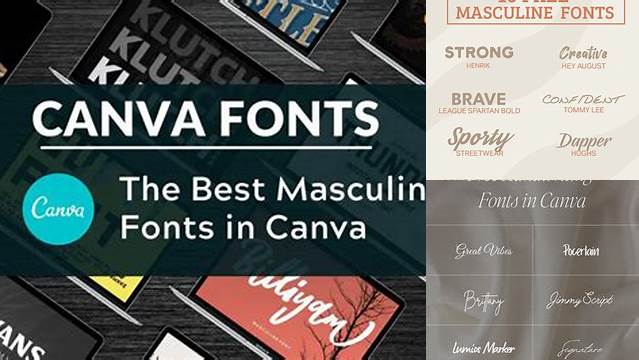
Masculine Fonts In Canva: Rugged & Stylish Choices
Guys, are you looking to inject some rugged charm and personality into your designs? Maybe you're working on a logo for a men's grooming brand, a website for a construction company, or even a masculine-themed invitation. Whatever it is, the right font can make all the difference. And if you're a Canva user, you're in luck! Canva boasts a vast library of fonts, and within it lies a treasure trove of masculine handwriting fonts just waiting to be discovered.
Why Masculine Handwriting Fonts?
Before we dive into specific fonts, let's talk about why you might choose a masculine handwriting font in the first place. Masculine fonts, in general, tend to evoke feelings of strength, reliability, and confidence. They often have heavier weights, bolder strokes, and a more angular or geometric appearance. When you combine these characteristics with the organic, human touch of handwriting, you get a powerful combination. Handwriting fonts add a personal and authentic feel to your designs, making them feel less corporate and more relatable. A well-chosen masculine handwriting font can convey a sense of craftsmanship, tradition, or even rebellion, depending on the specific style you choose.
Think about the message you want to send with your design. Are you aiming for a classic, vintage vibe? A modern, edgy feel? Or something in between? The font you choose should align with your overall design aesthetic and target audience. For example, a bold, brush-style handwriting font might be perfect for a rock band poster, while a refined, cursive font might be more appropriate for a high-end men's fragrance brand. The key is to select a font that not only looks good but also communicates the right message.
Key Characteristics of Masculine Handwriting Fonts
So, what exactly makes a handwriting font "masculine"? While there's no single definition, there are some common characteristics to look for:
- Boldness and Weight: Masculine fonts often have thicker strokes and a heavier weight, giving them a more substantial and grounded feel. Think about fonts that have a strong presence on the page and don't get lost in the background.
- Rough Edges and Imperfection: Unlike clean, geometric fonts, masculine handwriting fonts often embrace imperfections. Slightly rough edges, uneven strokes, and subtle variations in letterforms add character and authenticity. These imperfections make the font feel more human and less sterile.
- Angularity and Sharpness: Many masculine fonts incorporate angular shapes and sharp edges, conveying a sense of strength and precision. This is especially true for fonts inspired by industrial or military styles. Look for fonts with strong, defined lines and minimal curves.
- Vintage and Classic Styles: Masculine handwriting fonts often draw inspiration from vintage and classic styles, such as vintage scripts, brush lettering, and sign painting. These styles evoke a sense of tradition, craftsmanship, and timelessness. Consider fonts that have a retro or old-fashioned feel.
- Minimalist and Clean: While many masculine fonts are bold and rugged, there are also minimalist and clean options that can convey a sense of understated elegance. These fonts often have simple, geometric letterforms with a touch of handwriting flair. Look for fonts that are clean and legible but still have a unique personality.
Remember, these are just general guidelines, and there are always exceptions to the rule. Ultimately, the best way to find the right masculine handwriting font is to experiment and see what works best for your specific project.
Top Masculine Handwriting Fonts in Canva
Okay, guys, let's get to the good stuff! Now that we know what to look for, let's explore some of the top masculine handwriting fonts available in Canva. Keep in mind that Canva's font library is constantly evolving, so there may be new options available since this article was written. However, these are some solid choices that are sure to add a touch of masculine flair to your designs:
Amatic SC: This is a popular choice for a reason. Amatic SC is a condensed sans-serif font with a handwritten feel. It's bold, slightly rough around the edges, and has a strong vertical presence. It's a great option for headlines, posters, and other designs where you want to make a statement. This font works great for designs where you need to capture attention immediately, such as promotional materials or event posters. Its bold presence and handwritten feel can add a personal touch while maintaining readability, making it a versatile choice for various projects.
Permanent Marker: As the name suggests, Permanent Marker is a bold, marker-style font with a raw and edgy feel. It's perfect for designs that need a rebellious or hand-drawn touch. Think band posters, graffiti-inspired art, or anything that needs a bit of attitude. The font's irregular strokes and bold appearance give it a distinctive, hand-crafted feel, ideal for conveying authenticity and a sense of raw energy in your designs. This makes it a favorite for projects aiming for a gritty or urban aesthetic.
Oswald: While technically a sans-serif, Oswald has a slightly condensed and geometric design that lends itself well to masculine aesthetics. It's clean, legible, and has a strong, confident presence. This font is a versatile option for headlines, body text, and logos. Oswald's modern, yet sturdy character makes it suitable for professional and creative designs alike, offering a balance between formality and approachability. Its clean lines and strong presence ensure readability across various mediums, enhancing its usability.
League Gothic: Another sans-serif option, League Gothic is a classic, condensed font with a vintage industrial feel. It's tall, narrow, and has a slightly rough texture, making it perfect for designs that need a touch of old-school cool. This font is particularly effective for projects that aim to evoke a sense of nostalgia or historical significance. Its condensed form allows for impactful headlines and titles, making it a preferred choice for posters, advertisements, and branding materials seeking a vintage aesthetic.
Raleway: Raleway is an elegant sans-serif font with a geometric design and a slightly quirky personality. It's clean, modern, and versatile, making it a great choice for a wide range of projects. This font offers a touch of sophistication while maintaining a contemporary feel, making it suitable for both digital and print designs. Its versatility allows it to be used in body text as well as headings, providing a cohesive look across different design elements.
Bebas Neue: Bebas Neue is a popular sans-serif font known for its clean lines and tall, condensed form. It's a great option for headlines and titles, especially in designs that require a modern and impactful look. Its bold presence and excellent readability make it a favored choice for posters, websites, and branding materials. The font's contemporary design ensures it remains relevant and effective in various applications, from digital interfaces to print media.
Montserrat: Montserrat is a geometric sans-serif font inspired by the urban typography of Buenos Aires. It's a versatile font with a clean and modern appearance, suitable for both headings and body text. This font brings a touch of urban sophistication to any design, with its balanced letterforms providing clarity and style. It works well in a variety of contexts, including branding, web design, and print layouts, offering a versatile solution for designers aiming for a contemporary aesthetic.
Playfair Display: This font is a transitional serif typeface, showcasing a blend of elegance and strength. Its high contrast and delicate serifs give it a refined yet commanding presence, making it an excellent choice for headlines, titles, and branding materials that require a touch of class and authority. Playfair Display is particularly effective in projects that aim to convey a sense of luxury or sophistication, enhancing the overall visual appeal with its distinctive character.
Archivo Black: If you're looking for a bold and impactful typeface, Archivo Black delivers with its heavy weight and sturdy letterforms. Designed for highlights and headlines, this sans-serif font ensures your message stands out with strength and clarity. Its robust design makes it ideal for use in posters, banners, and other large-format displays, where capturing attention is crucial. Archivo Black's boldness adds a definitive statement to any design, ensuring visibility and impact.
Cabin: Cabin is a modern sans-serif typeface that blends humanist and geometric elements, resulting in a friendly yet professional appearance. Its clear, open letterforms make it highly readable in both body text and headlines, making it a versatile choice for a wide range of design projects. Cabin's balanced design makes it a reliable option for websites, print materials, and branding, offering a harmonious and approachable aesthetic.
This is just a small sampling of the masculine handwriting fonts available in Canva. The best way to find the perfect font for your project is to experiment and see what resonates with you. Try different combinations of fonts, sizes, and styles until you find the right fit.
How to Use Masculine Handwriting Fonts Effectively
Choosing the right font is only half the battle. To truly make your designs shine, you need to use masculine handwriting fonts effectively. Here are a few tips to keep in mind:
- Pairing is Key: Don't use masculine handwriting fonts for everything. They're best used sparingly, as a headline or accent font, paired with a more legible body font. Think of it like adding a touch of spice to a dish – a little goes a long way. Consider pairing a bold handwriting font with a clean sans-serif font for contrast and balance. For instance, combine "Permanent Marker" with "Oswald" to create a dynamic and readable design.
- Consider Legibility: While style is important, legibility is paramount. Make sure your chosen font is easy to read, especially at smaller sizes. Avoid overly ornate or complex fonts that can become difficult to decipher. Test your font choice in different sizes and contexts to ensure it remains readable across various platforms and devices. For example, if you're using a handwritten font for website content, ensure it's legible on both desktop and mobile screens.
- Use Hierarchy: Use font size, weight, and color to create a clear visual hierarchy. Make the most important information stand out by using a larger or bolder font. Use a more subtle font for secondary information. A well-defined hierarchy guides the reader's eye through your design, making it easier to understand and engage with the content. For instance, use a large, bold handwritten font for headlines and smaller, cleaner sans-serif font for body text.
- Don't Overdo It: Resist the urge to use too many different fonts in a single design. Stick to two or three fonts at most to maintain a cohesive and professional look. Overusing fonts can create a cluttered and confusing design, diluting your message. A consistent font palette enhances visual harmony and helps establish a clear brand identity. Consider using different weights and styles within the same font family to add variation without compromising coherence.
- Think About Context: The context of your design will influence your font choice. A font that works well for a website might not be suitable for a print brochure. Consider the medium and target audience when making your selection. For example, a rugged, distressed font might be perfect for a construction company's marketing materials, but it may not be appropriate for a luxury brand's website. Understanding the context ensures your font choice aligns with the overall message and aesthetic.
By following these tips, you can harness the power of masculine handwriting fonts to create impactful and visually appealing designs.
Examples of Using Masculine Handwriting Fonts
To further illustrate the versatility of masculine handwriting fonts, let's look at some specific examples of how they can be used in different design projects:
- Logos: A bold, hand-lettered logo can give a brand a unique and memorable identity. Think of brands that want to convey a sense of craftsmanship, authenticity, or ruggedness. A custom logo created with a masculine handwriting font can stand out from the crowd. For instance, a coffee shop might use a rustic, hand-drawn logo to evoke a cozy and artisanal feel.
- Websites: Masculine handwriting fonts can be used for headlines, call-to-action buttons, or even as part of a website's overall design. They can add personality and warmth to an otherwise sterile digital environment. A well-placed handwritten font can draw visitors' attention and enhance the user experience. For example, a men's fashion blog might use a stylish handwriting font for its blog titles to add a personal touch.
- Posters and Flyers: A bold and attention-grabbing handwriting font is perfect for posters and flyers. It can help your message stand out and capture the attention of passersby. Consider using fonts with strong visual impact for event promotions or announcements. For instance, a music festival poster might use a bold, grungy handwriting font to convey the event's energy and vibe.
- Invitations: For a rustic or informal event, a masculine handwriting font can add a touch of personality to your invitations. This can be particularly effective for events like weddings, parties, or corporate gatherings. A handwritten font can make guests feel more personally invited and set the tone for the event. For example, a backyard BBQ invitation might use a casual, hand-lettered font to evoke a relaxed and friendly atmosphere.
- Branding Materials: Masculine handwriting fonts can be incorporated into various branding materials, such as business cards, letterheads, and packaging. This can help create a consistent brand identity across all touchpoints. Using a distinctive font can help your brand stand out and make a lasting impression. For instance, a craft brewery might use a rugged, hand-drawn font on its labels and merchandise to reinforce its artisanal identity.
These are just a few examples, and the possibilities are endless. With a little creativity, you can find countless ways to incorporate masculine handwriting fonts into your designs.
So, guys, there you have it! A comprehensive guide to masculine handwriting fonts in Canva. We've covered why you might choose them, what characteristics to look for, some top font recommendations, and how to use them effectively. Now it's your turn to experiment and see what you can create. Remember, the right font can elevate your designs and help you communicate your message with style and impact. So go ahead, explore the world of masculine handwriting fonts and let your creativity flow! Whether you're designing a logo, a website, or a poster, the perfect font is out there waiting to be discovered. Happy designing!